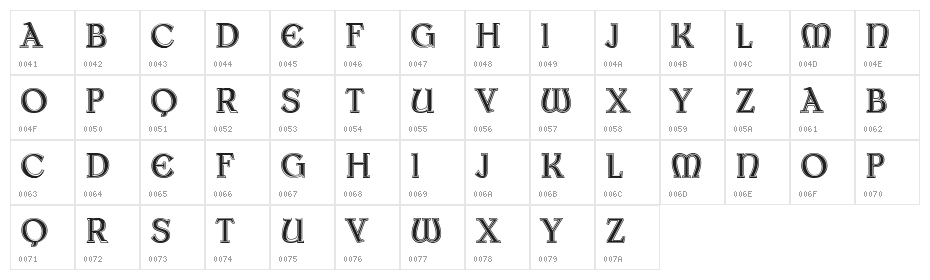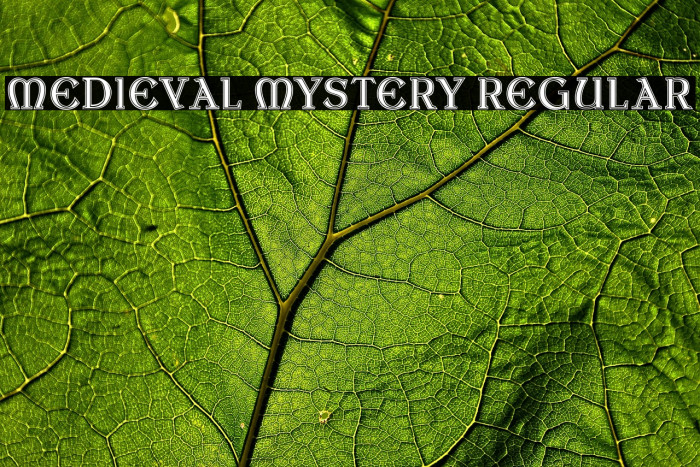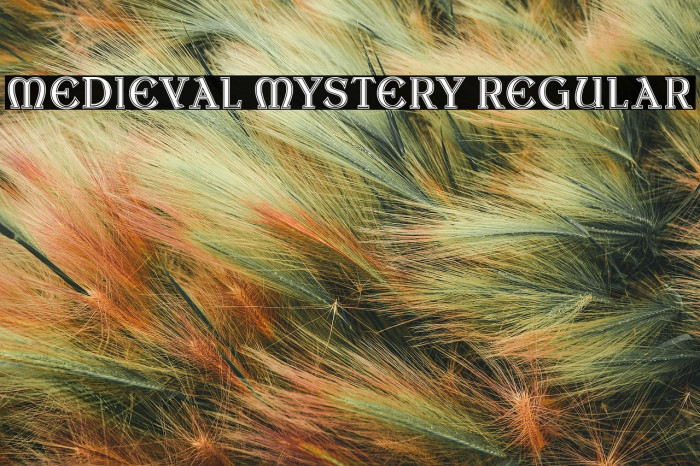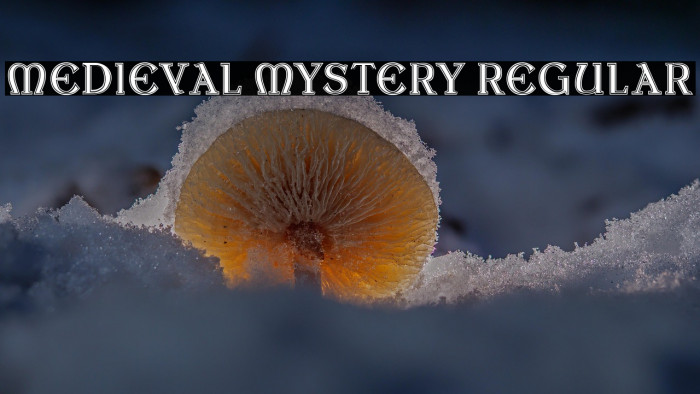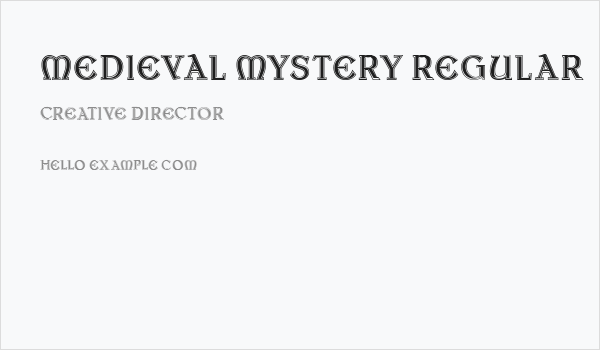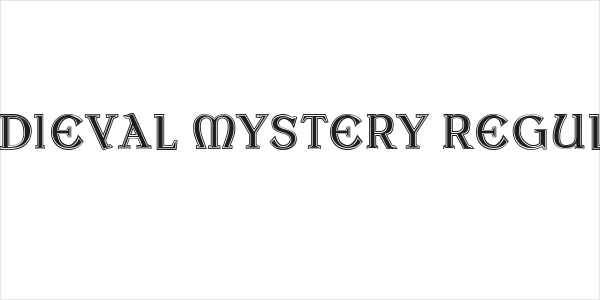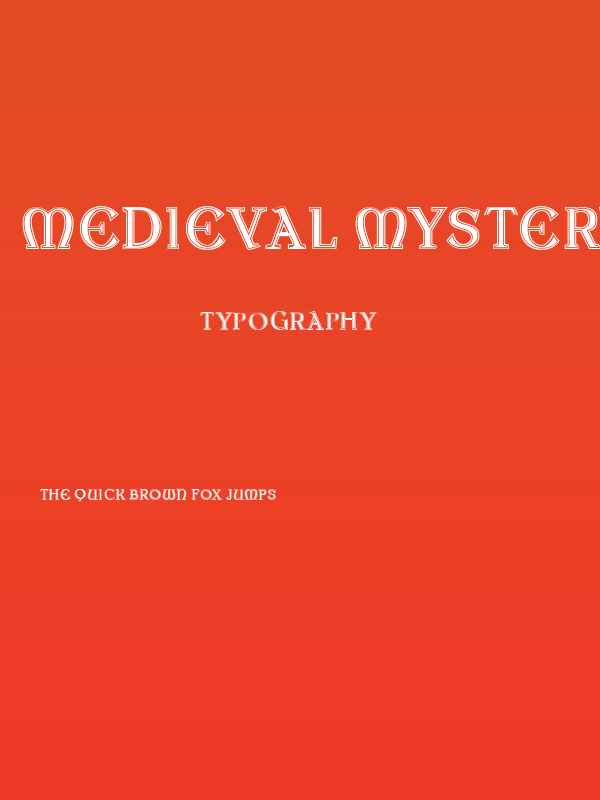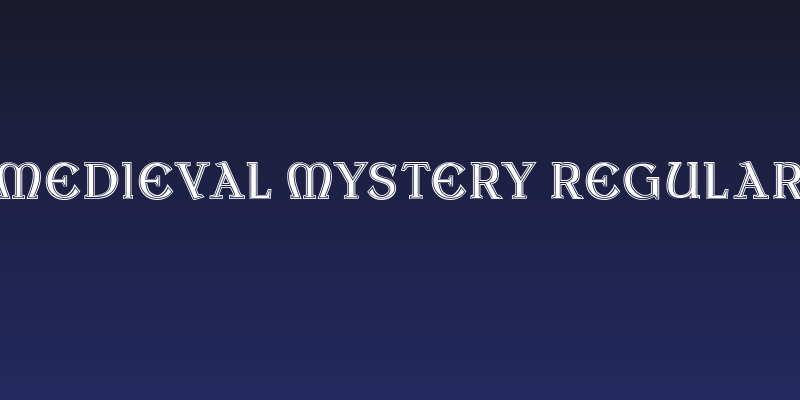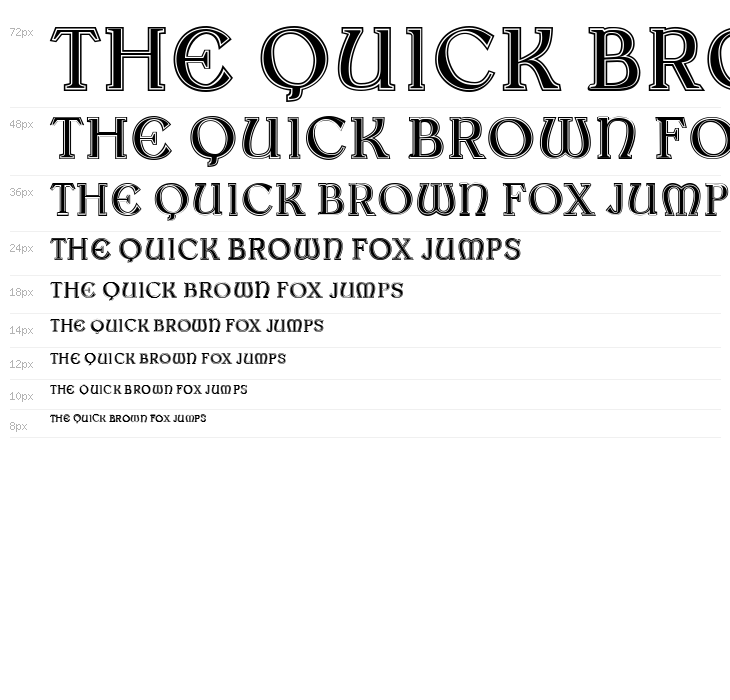
Medieval Mystery Regular Font
Medieval Mystery Regular Description
This font features a distinctive medieval-inspired design with ornate, decorative elements that evoke a sense of mystery and historical elegance. The characters are bold and structured, with intricate detailing that adds depth and complexity to each letterform. The uppercase letters are particularly striking, with sharp angles and flourishes that enhance their visual impact. The font maintains a consistent weight throughout, providing a balanced and cohesive appearance. Its unique style makes it ideal for projects that require a touch of historical or fantasy-themed aesthetics.
| Overall Style | Medieval, Decorative |
| Proposed Projects | Ideal for fantasy book covers, historical event posters, themed invitations, or any project requiring a medieval or mysterious aesthetic. |